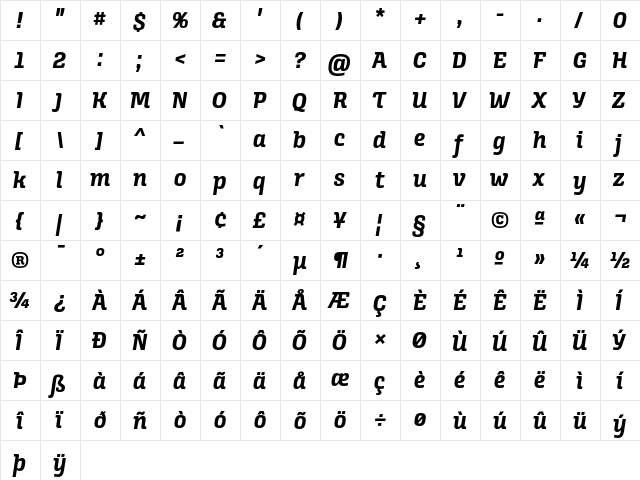
Alianza Italic 700
| Foundry | Manuel Corradine - Sergio Ramirez |
| Designer | Manuel Corradine - Sergio Ramirez |
Design Context for Alianza Italic Typeface
Alianza Italic is a composed and adaptable typeface that performs quietly and consistently across a wide range of design contexts. Its italic angle brings a sense of urgency and motion to the letterforms.
Pro Tip: Use Alianza Italic for emphasis, pull quotes, and subheadings where its slanted energy can add rhythm to the layout.